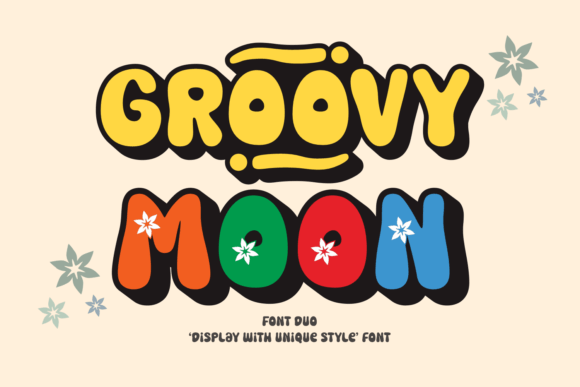
Groovy Moon Font: Add a Retro Twist to Your Designs
Are you looking for a font that can add a touch of fun and playfulness to your designs? Look no further than the Groovy Moon Font. This display font is perfect for creating bold and eye-catching designs with a retro vibe. Its unique style is inspired by the 1960s, making it ideal for posters, logos, and any creative project where you want to stand out from the crowd.
What is Groovy Moon Font?
Groovy Moon Font is a fun and playful display font that features bold, curvy letters with a retro twist. Its unique style is reminiscent of the 1960s, a time when design was all about being bold, colorful, and fun. This font is perfect for designers who want to add a touch of grooviness to their designs, whether it’s for a poster, logo, or any other creative project.
Key Features of Groovy Moon Font
So, what makes Groovy Moon Font so special? Here are some of its key features:
- Bold and Curvy Letters: The font features bold and curvy letters that are perfect for creating eye-catching designs.
- Retro Vibe: The font has a unique retro vibe that’s inspired by the 1960s.
- Playful and Fun: The font is perfect for creating playful and fun designs that are sure to stand out.
- Versatile: The font can be used for a variety of design projects, including posters, logos, and more.
Why Use Groovy Moon Font?
So, why should you use Groovy Moon Font for your design projects? Here are some reasons:
- Adds a Touch of Retro Style: The font adds a touch of retro style to your designs, making them stand out from the crowd.
- Perfect for Creative Projects: The font is perfect for creative projects where you want to add a touch of fun and playfulness.
- Easy to Read: Despite its bold and curvy style, the font is easy to read, making it perfect for use in a variety of designs.
- Unique and Eye-Catching: The font is unique and eye-catching, making it perfect for designs where you want to grab the attention of your audience.
How to Use Groovy Moon Font?
Using Groovy Moon Font is easy. Here are some tips:
- Use it for Headings: The font is perfect for use in headings, where you want to grab the attention of your audience.
- Pair it with Other Fonts: You can pair Groovy Moon Font with other fonts to create a unique and eye-catching design.
- Use it for Logos: The font is perfect for use in logos, where you want to create a bold and eye-catching design.
- Experiment with Colors: You can experiment with different colors to create a design that’s unique and eye-catching.
Groovy Moon Font in Graphic Design
Groovy Moon Font is a versatile font that can be used in a variety of graphic design projects. Here are some ideas:
- Posters: The font is perfect for use in posters, where you want to grab the attention of your audience.
- Logos: The font is perfect for use in logos, where you want to create a bold and eye-catching design.
- Brochures: The font can be used in brochures, where you want to create a fun and playful design.
- Social Media Graphics: The font is perfect for use in social media graphics, where you want to create a bold and eye-catching design.
Tips for Using Groovy Moon Font Effectively
Here are some tips for using Groovy Moon Font effectively:
- Use it Sparingly: Use the font sparingly, as it can be overwhelming if used too much.
- Pair it with Other Fonts: Pair the font with other fonts to create a unique and eye-catching design.
- Experiment with Colors: Experiment with different colors to create a design that’s unique and eye-catching.
- Keep it Simple: Keep your design simple and clean, and use the font to add a touch of personality.
Groovy Moon Font is a fun and playful display font that’s perfect for adding a retro twist to your designs. Its bold and curvy letters make it perfect for creating eye-catching designs that are sure to stand out. With its versatility and ease of use, it’s perfect for a variety of design projects, including posters, logos, and more. So why not give it a try and add a touch of grooviness to your designs?